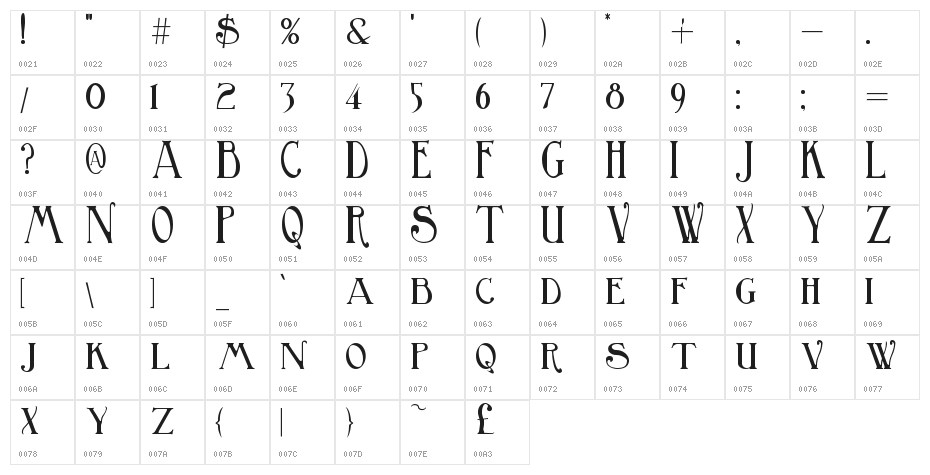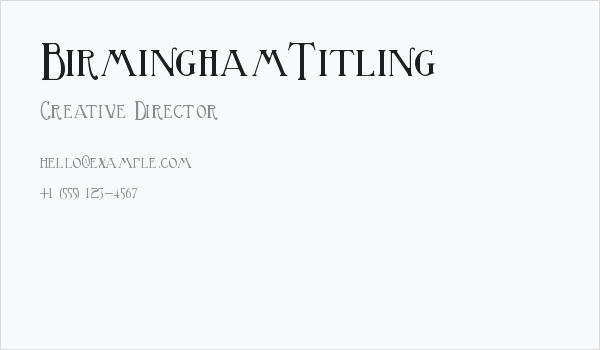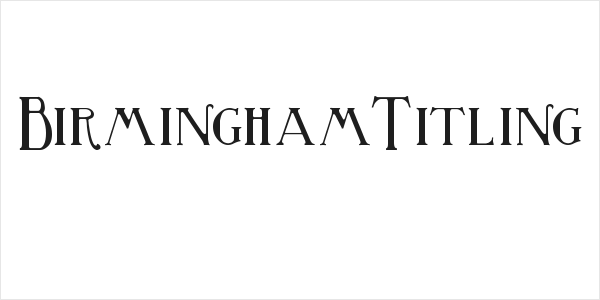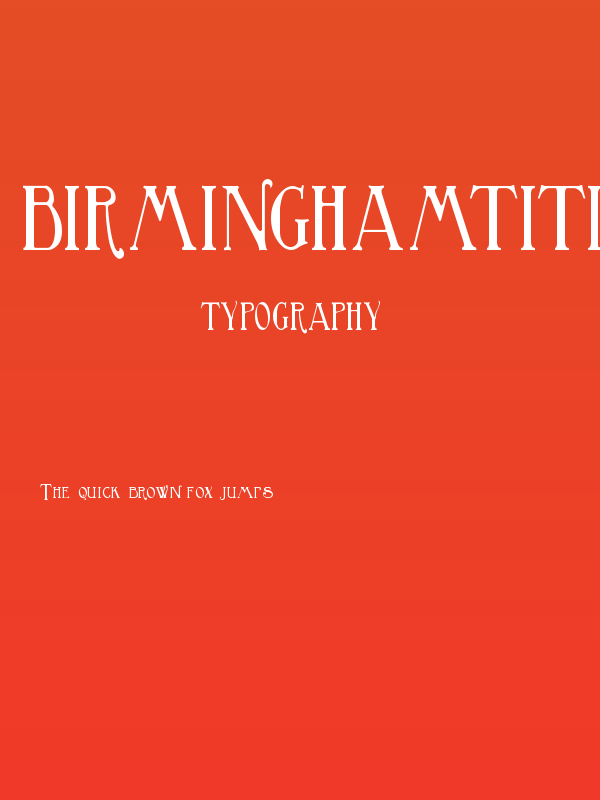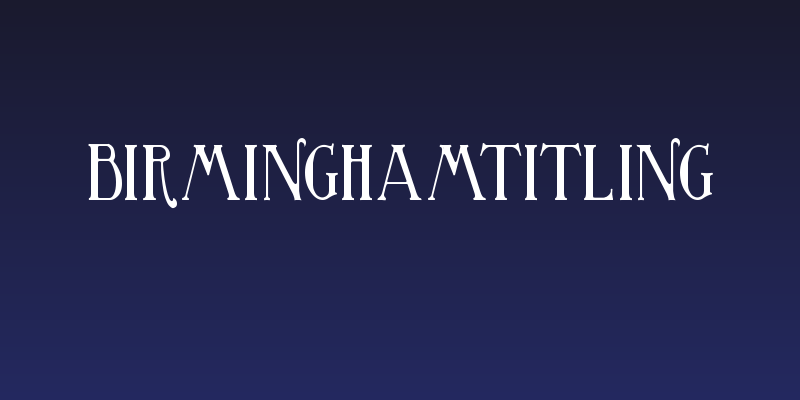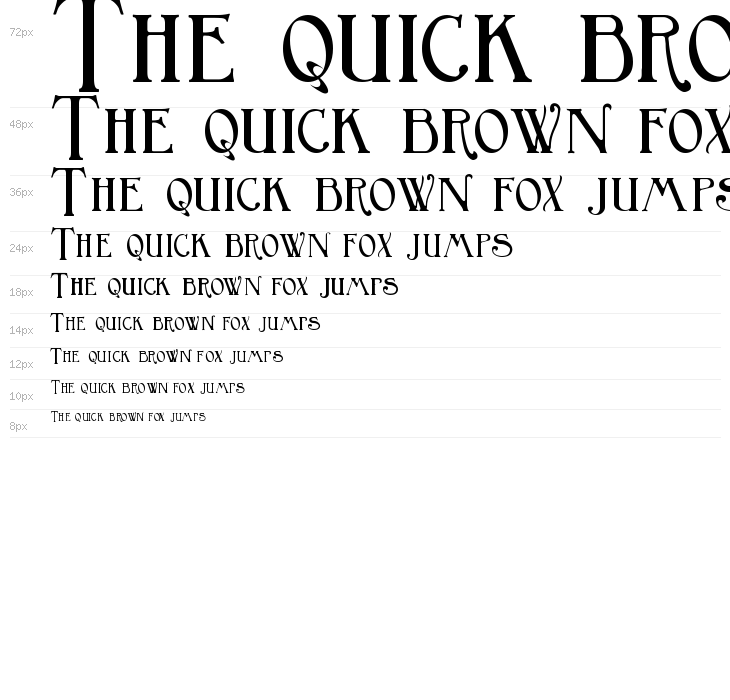
BirminghamTitling Font
BirminghamTitling Description
This font features a distinctive and elegant design with a strong emphasis on vertical strokes and subtle curves. The uppercase letters are characterized by their tall, narrow forms, while the lowercase letters maintain a consistent style that complements the uppercase. The numerals are uniquely styled, with a mix of sharp angles and smooth curves, adding to the font's sophisticated appearance. Special characters are designed with flair, incorporating both traditional and modern elements. Overall, this font exudes a sense of refinement and is well-suited for projects that require a touch of class and distinction.
| Use Case | Logos, Headlines |
| Proposed Projects | Ideal for luxury branding, wedding invitations, high-end product packaging, and editorial design. |